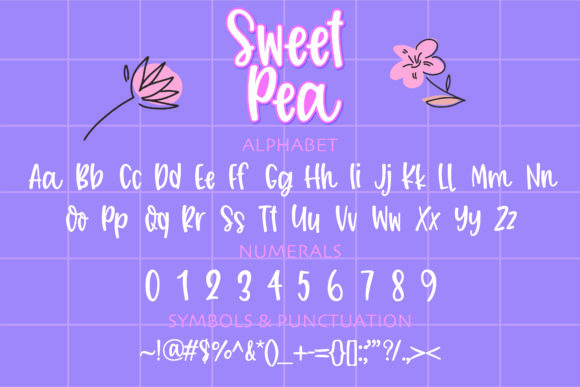
Sweet Pea Font: A Playful and Cool Handwritten Font for Your Designs
Are you looking for a font that can add a touch of playfulness and coolness to your designs? Look no further than the Sweet Pea font. This beautifully crafted handwritten font is perfect for those who need a refreshing look to their designs. In this article, we’ll take a closer look at the Sweet Pea font, its features, and how you can use it to elevate your designs.
What is Sweet Pea Font?
Sweet Pea is a playful and cool handwritten font that is designed to bring a touch of elegance and sophistication to your designs. This font is carefully crafted to provide a unique and refreshing look that sets it apart from other fonts. Whether you’re working on a branding project, a website, or a marketing campaign, Sweet Pea font is the perfect choice.
Key Features of Sweet Pea Font
- Playful and Cool Design: Sweet Pea font has a playful and cool design that is perfect for adding a touch of whimsy to your designs.
- Handwritten Style: This font has a beautiful handwritten style that gives it a personal and unique touch.
- Refreshing Look: Sweet Pea font has a refreshing look that is perfect for designs that need a bit of elegance and sophistication.
- Easy to Read: This font is easy to read, making it perfect for body text and headings.
Who Can Use Sweet Pea Font?
Sweet Pea font is perfect for a variety of design projects, including:
Design Projects that Can Use Sweet Pea Font
- Branding and Logo Design: Sweet Pea font is perfect for branding and logo design projects that need a touch of playfulness and coolness.
- Web Design: This font is great for web design projects, including website headers, titles, and body text.
- Marketing and Advertising: Sweet Pea font is perfect for marketing and advertising campaigns that need a refreshing look.
- Social Media Graphics: This font is great for social media graphics, including Facebook posts, Instagram stories, and Twitter headers.
Benefits of Using Sweet Pea Font
There are several benefits to using Sweet Pea font, including:
Benefits of Sweet Pea Font
- Unique and Refreshing Look: Sweet Pea font provides a unique and refreshing look that sets it apart from other fonts.
- Playful and Cool Design: This font has a playful and cool design that is perfect for adding a touch of whimsy to your designs.
- Easy to Read: Sweet Pea font is easy to read, making it perfect for body text and headings.
- Versatile: This font is versatile and can be used for a variety of design projects.
Tips for Using Sweet Pea Font
Here are some tips for using Sweet Pea font:
Tips for Using Sweet Pea Font
- Use it for Headings and Titles: Sweet Pea font is perfect for headings and titles, where you want to make a statement.
- Pair it with Other Fonts: Pair Sweet Pea font with other fonts to create a unique and interesting design.
- Experiment with Colors: Experiment with different colors to find the perfect match for your design.
- Use it for Body Text: Sweet Pea font is easy to read, making it perfect for body text.
Sweet Pea font is a playful and cool handwritten font that is perfect for adding a touch of elegance and sophistication to your designs. With its unique and refreshing look, this font is perfect for a variety of design projects, including branding, web design, marketing, and social media graphics. By following the tips and guidelines outlined in this article, you can use Sweet Pea font to elevate your designs and create something truly special.